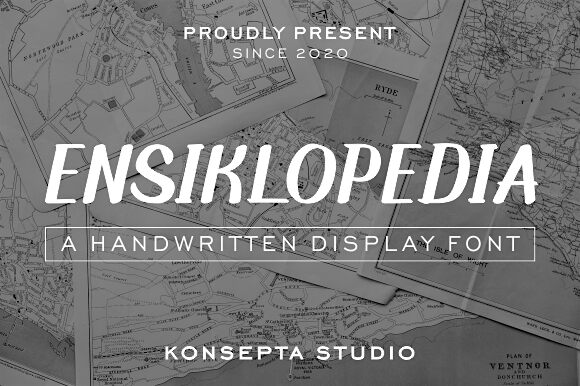
Proudly present our next font experimental project, Ensiklopedia. Ensiklopedia is a handwritten display font. It is suitable for various design projects. You can use it for Instagram posts, motivational quotes, or printed design such as t-shirt design, tote bag, or sticky not, etc.
Ensiklopedia